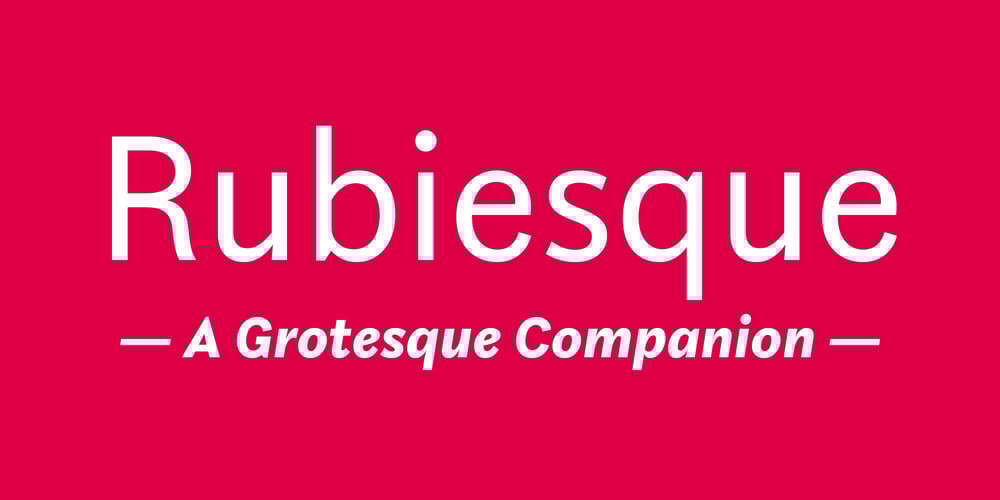
Rubiesque Font Family was designed by Nico Inosanto and published by Nootype. Rubiesque contains 11 styles and family package options. Rubiesque is the sans serif version of Rubis, these two families share the same skeleton and weights. Rubiesque is a sans combining humanist and grotesk references which give this typeface an interesting & unique personnality. The regular and medium weights are perfect for text while the italic give an interesting texture to the text. The range of style give a good flexibility to this family. It’s a perfect family for editorial use. Rubiesque consists in a 10 styles family, from Light to Black with their corresponding italics. Each font includes OpenType Features such as Small Caps, Proportional Figure, Tabular Figures, Numerators, Superscript, Denominators, Scientific Inferiors, Subscript, Ordinals, Fractions and ligatures. Rubiesque family supports Latin and Cyrillic, all these languages are covered:Latin language support:Afar, Afrikaans, Albanian, Asturian, Azeri, Basque, Bosnian, Breton, Bulgarian, Catalan, Cornish, Corsican, Croatian, Czech, Danish, Dutch, English, Esperanto, Estonian, Faroese, Filipino, Finnish, Flemish, French, Frisian, Friulian, Gaelic, Galician, German, Greenlandic, Hungarian, Icelandic, Indonesian, Irish, Italian, Kurdish, Latin, Latvian, Lithuanian, Luxembourgish, Malagasy, Malay, Maltese, Maori, Moldavian, Norwegian, Occitan, Polish, Portuguese, Provençal, Romanian, Romansch, Saami, Samoan, Scots, Scottish, Serbian, Slovak, Slovenian, Spanish, Swahili, Swedish, Tagalog, Turkish, Walloon, Welsh, WolofCyrillic language support:Adyghe, Avar, Belarusian, Bulgarian, Buryat, Chechen, Erzya, Ingush, Kabardian, Kalmyk, Karachay-Balkar, Karakalpak, Kazakh, Komi, Kyrgyz, Lak, Macedonian, Moldovan, Mongol, Permyak, Russian, Rusyn, Serbian, Tatar, Tofa, Tuvan, Ukrainian, Uzbek